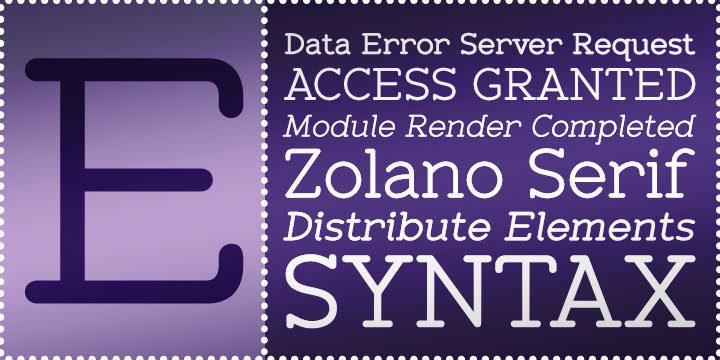
Zolano Serif BTN
Font Family by Breaking The Norm
Zolano Serif BTN is a futuristic serif family with a clean, straightforward approach to legibility. Built from smooth geometric forms, it combines a modern technical character with the added distinction of serif detailing, giving it a voice that feels both structured and slightly refined. The family is well suited for technology branding, packaging, signage, editorial headlines, gaming graphics, interfaces, and other contemporary design work that benefits from a crisp futuristic look with a bit more formality than a sans. With Regular, Bold, Oblique, and Bold Oblique styles, Zolano Serif BTN offers flexible display options for projects that want clarity, personality, and a sleek modern edge.